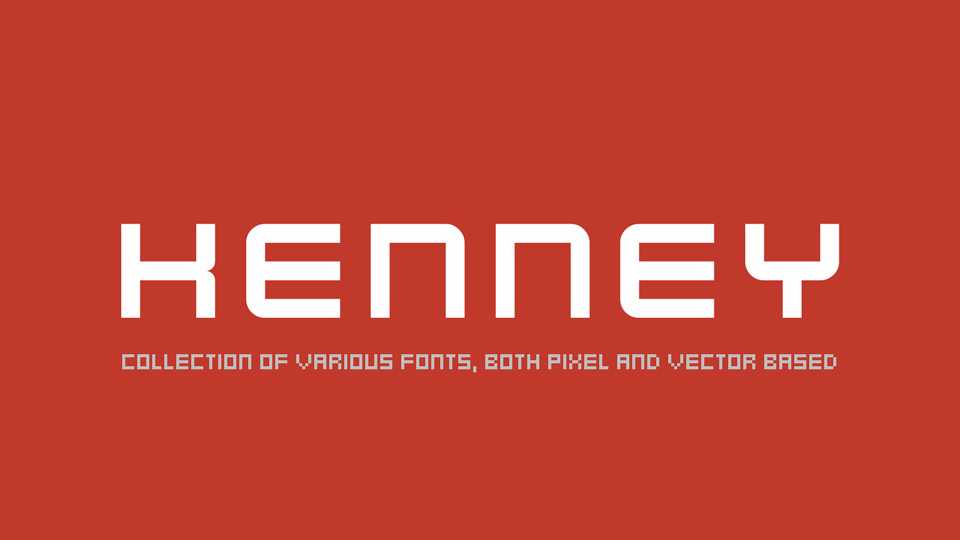
Download Kenney font family, a collection of 11 various fonts, both pixel and vector based. Kenney is best for display use, posters, headlines, games and other tech projects.
Designer: Erebor Studios